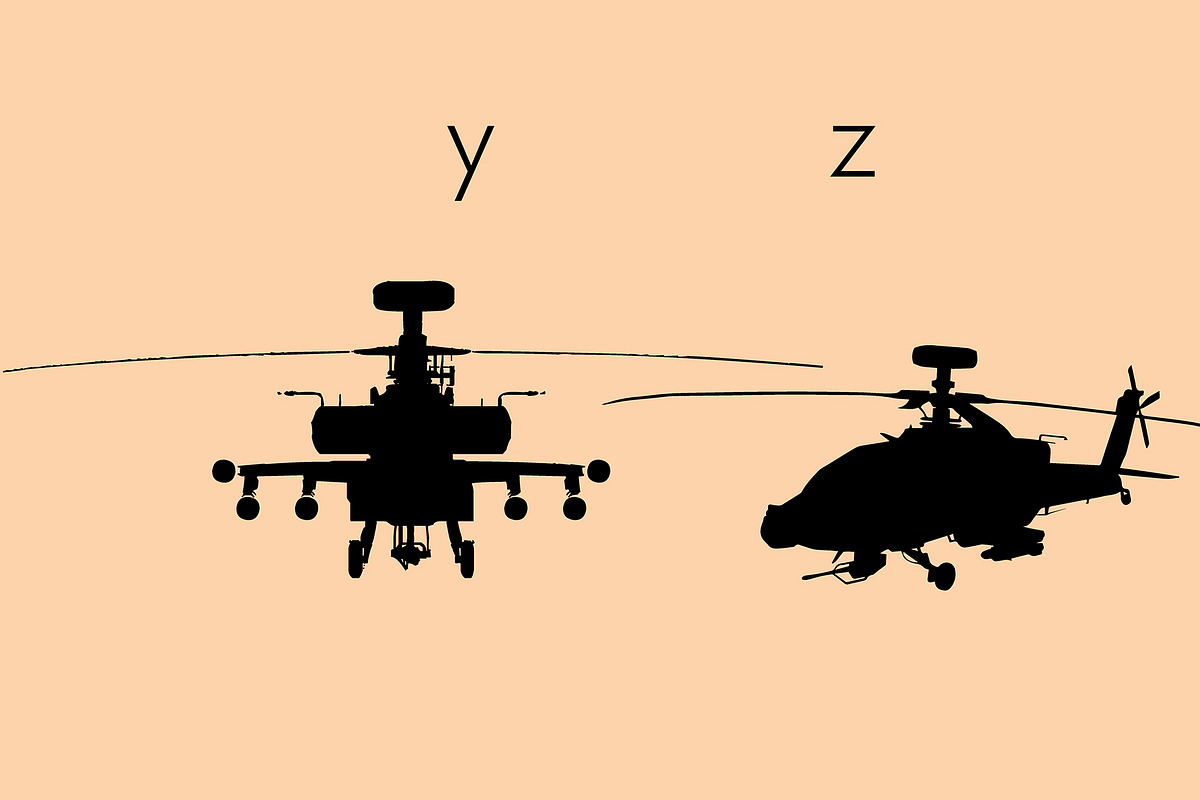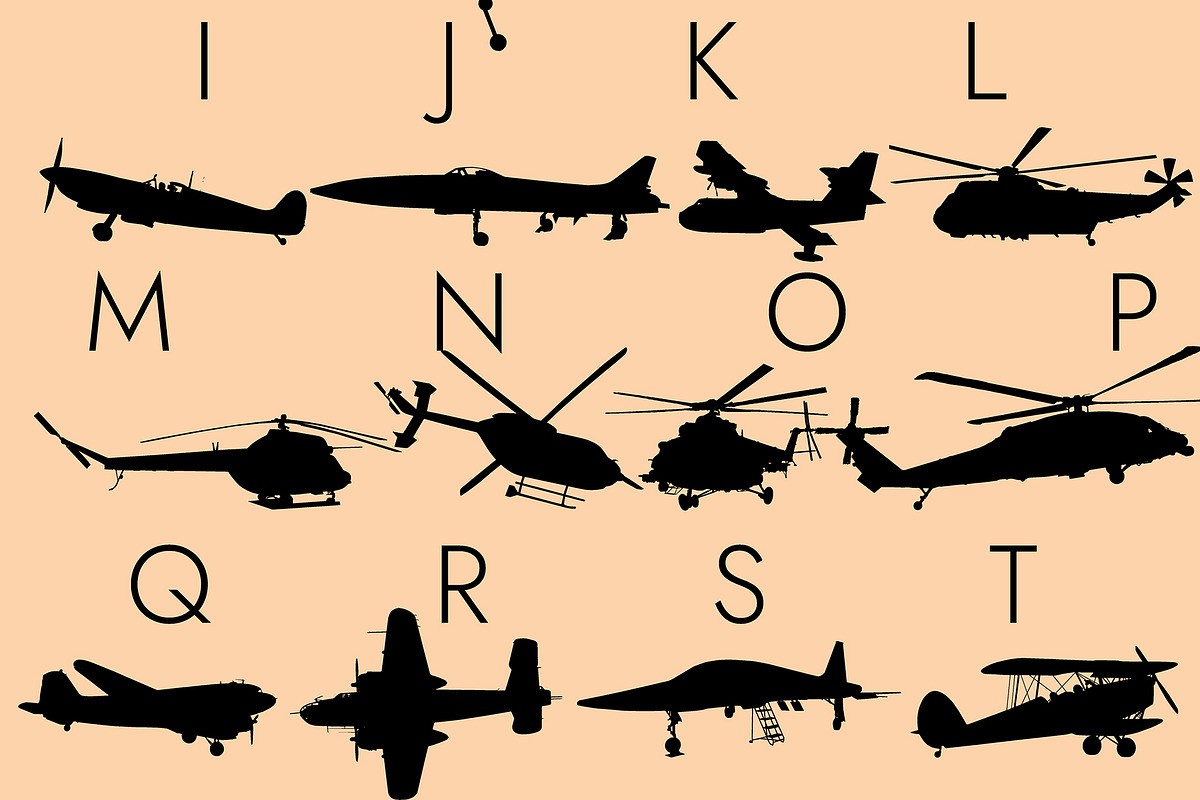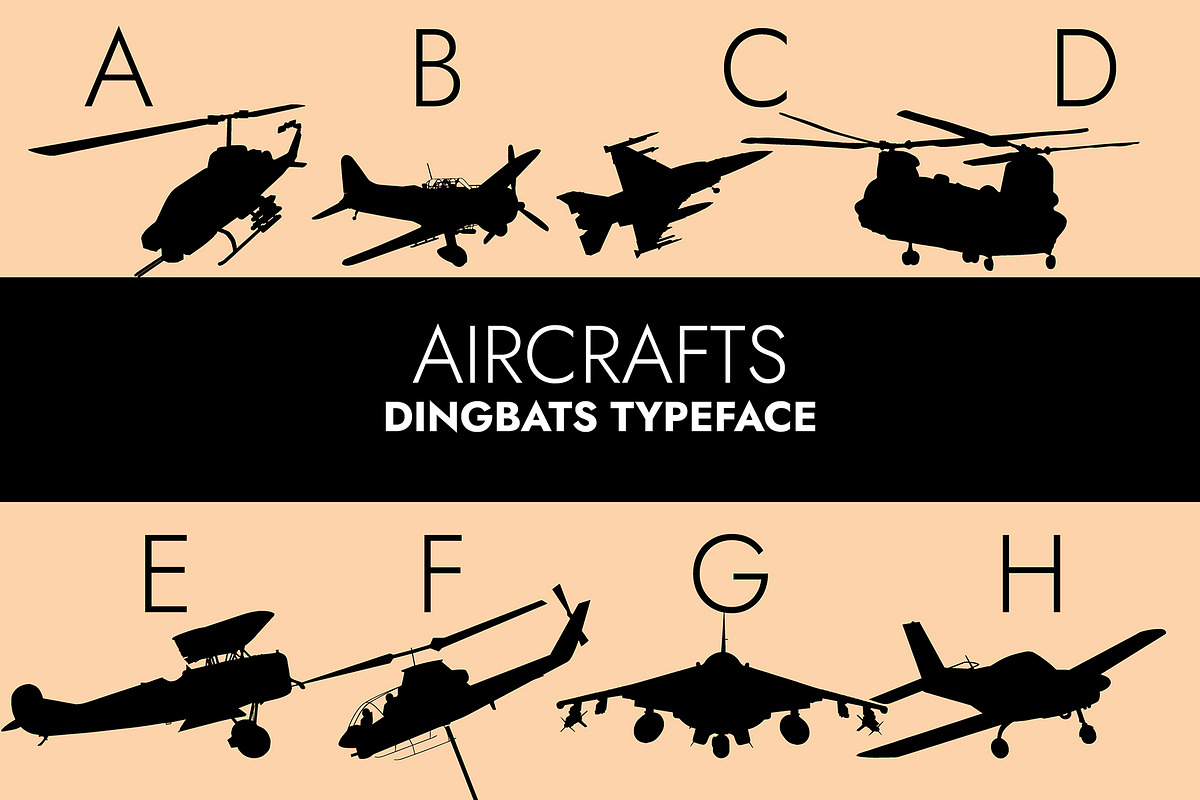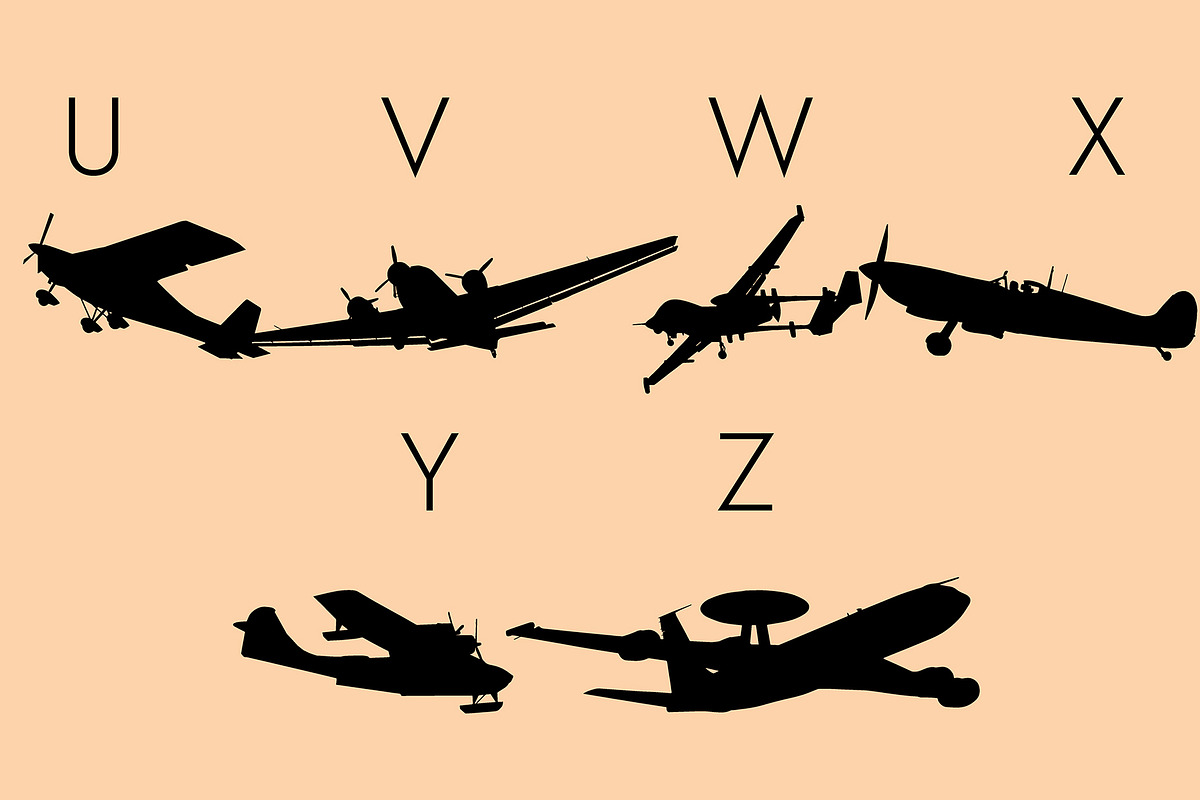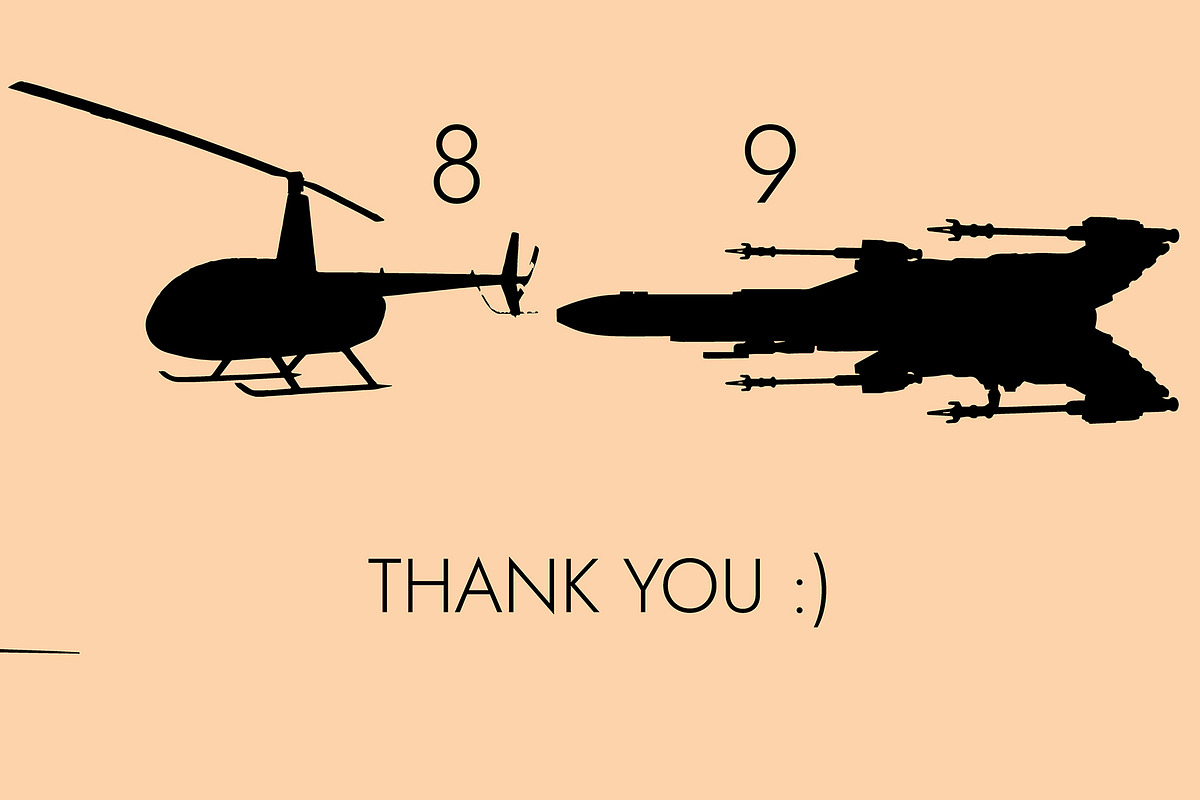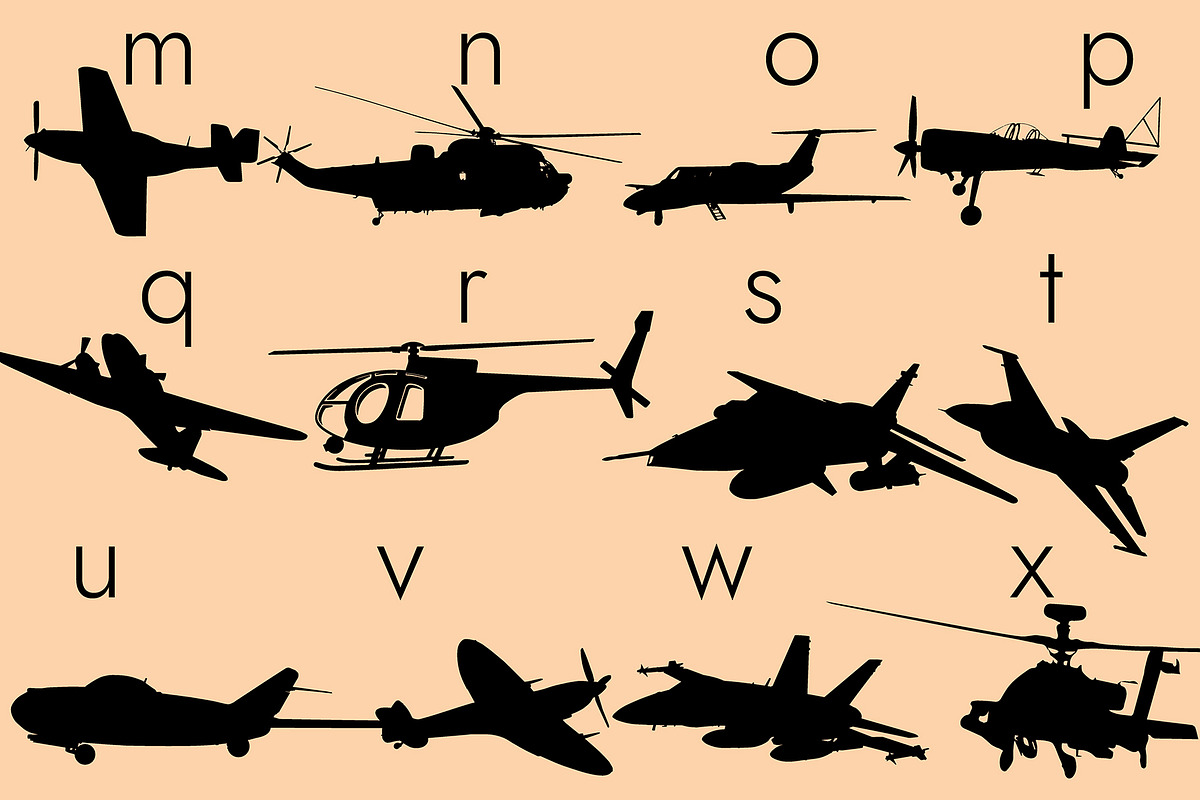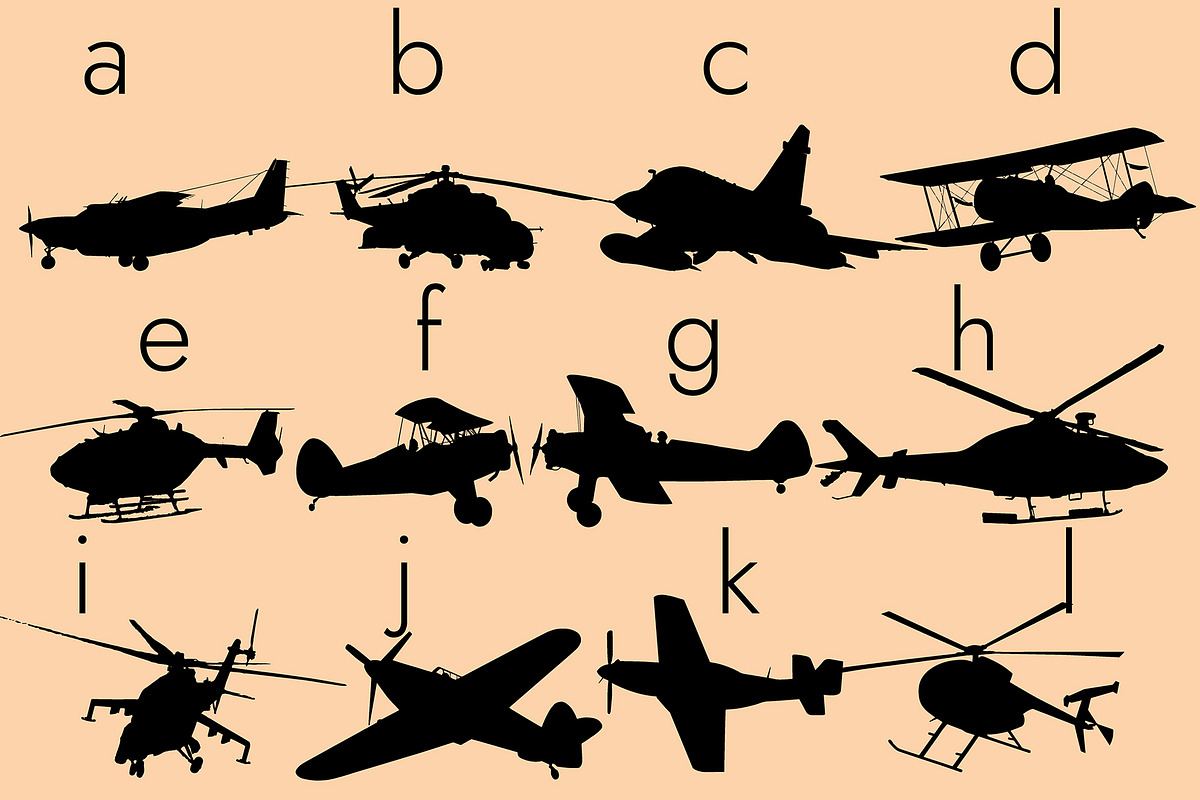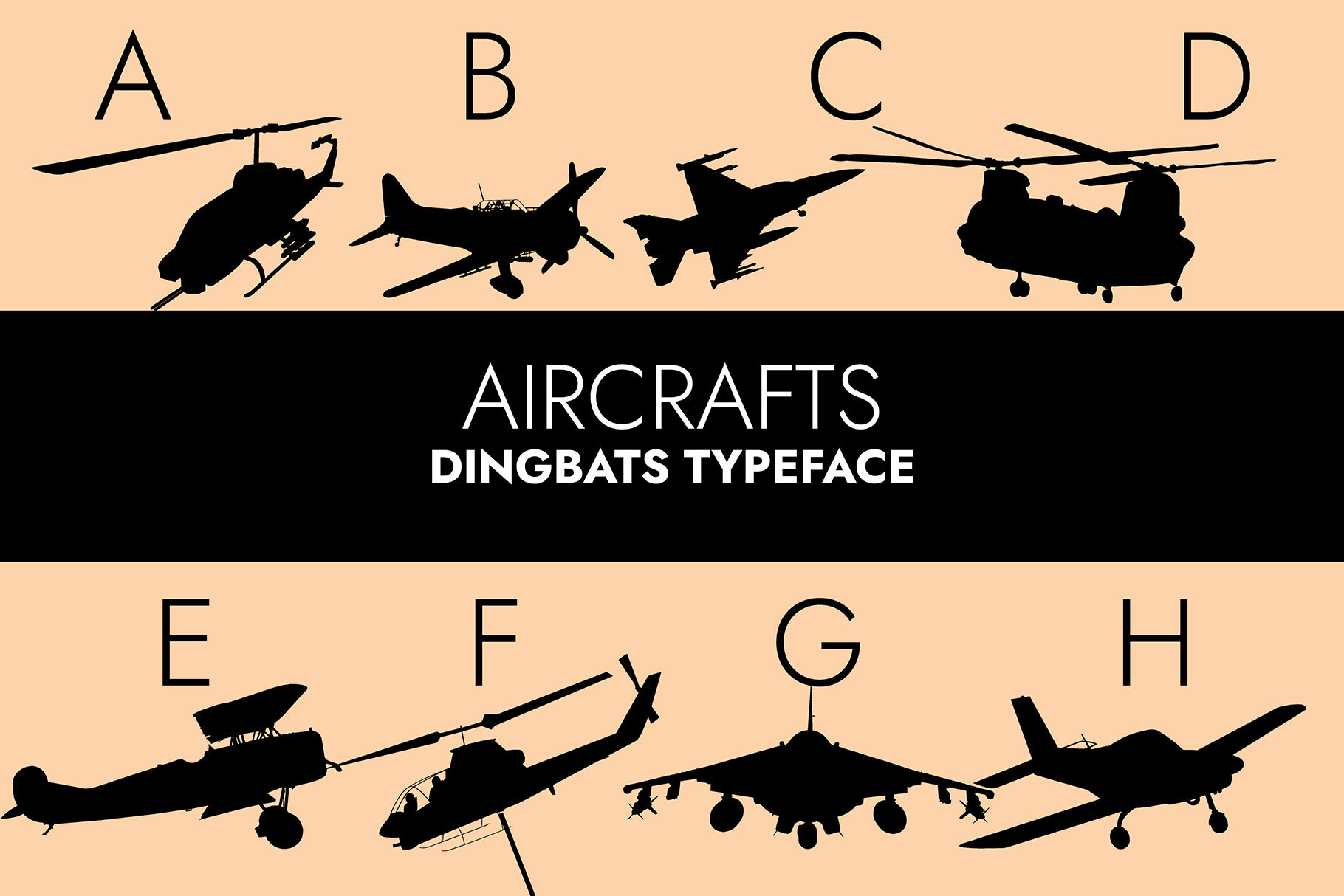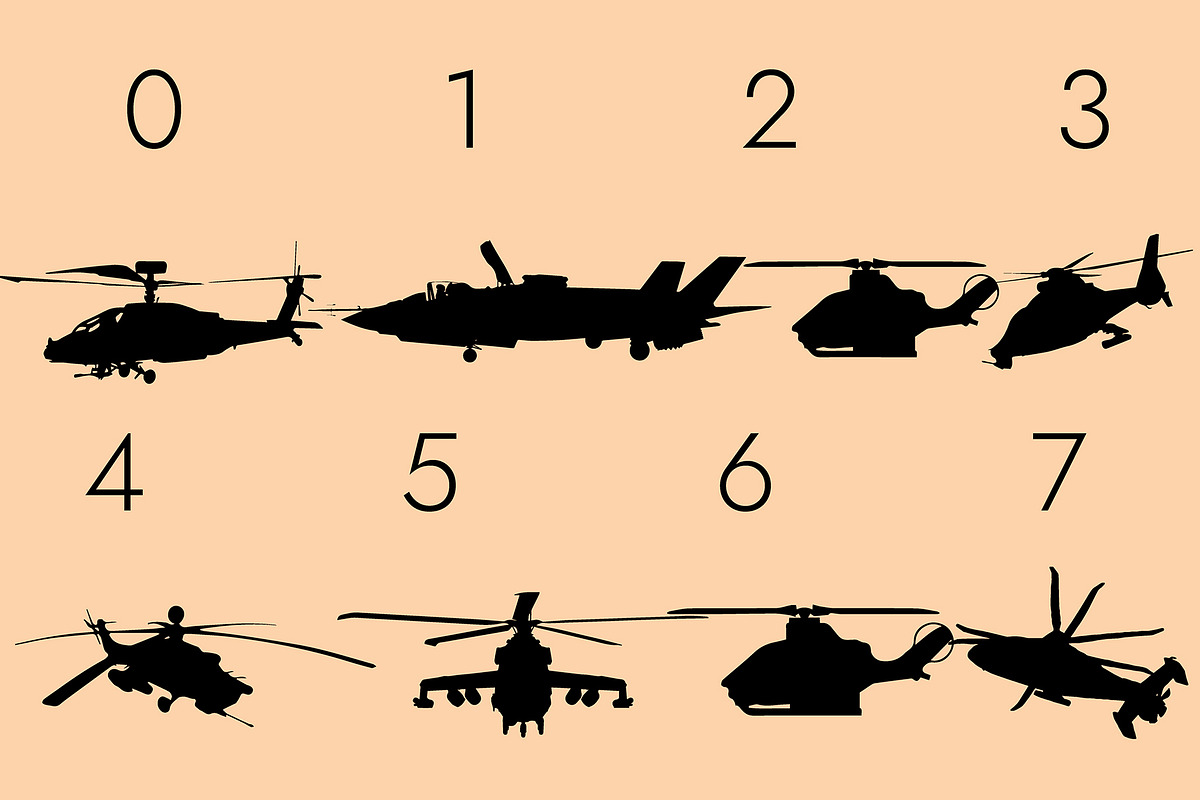
Aircrafts Silhouettes Dingbats Font
Aircrafts silhouettes is a dingbats font designed to make you able to generate unique aircraft silhouettes. Use this font to add a lovely accent to your aircraft-related projects and ideas.